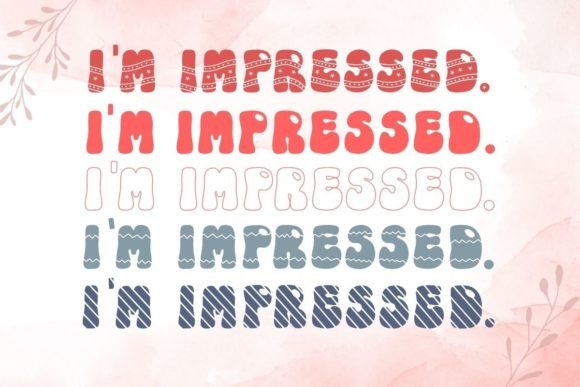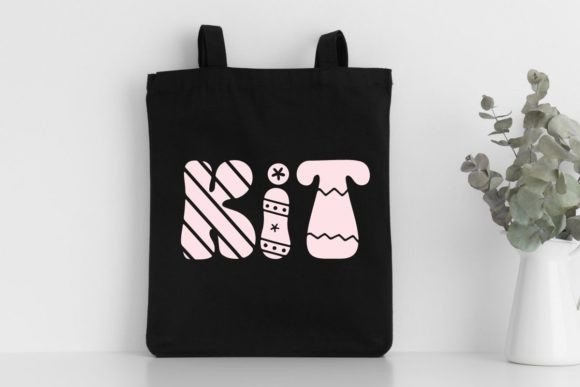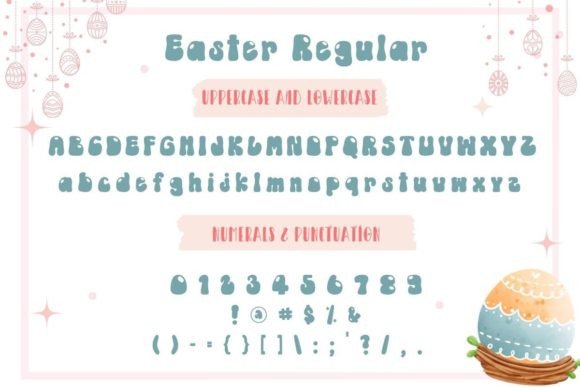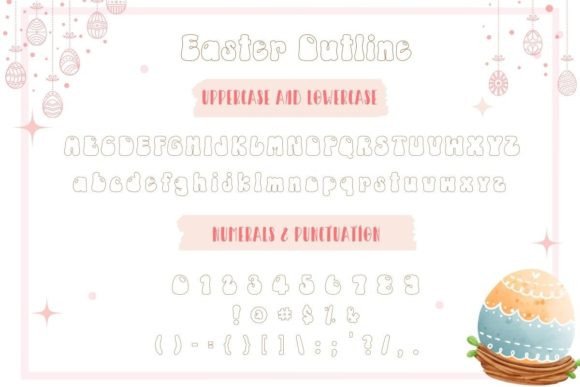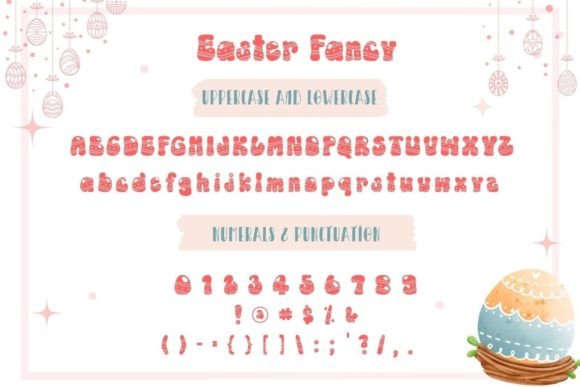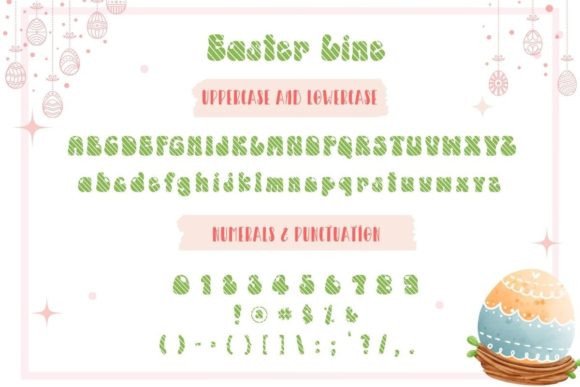
Easter Font: The Ultimate Decorative Font for Bold and Eye-Catching Designs
Easter is a bulky and attractive decorative font that adds a bold and dynamic element to your designs. With its strong, blocky characters and unique styling, this font is perfect for creating eye-catching headlines, posters, logos, and branding materials that demand attention. In this article, we’ll explore the features and benefits of Easter Font, and how it can elevate your design game.
What is Easter Font?
Easter Font is a decorative font designed to make a statement. Its bulky and blocky characters are carefully crafted to provide a bold and dynamic look that’s perfect for designs that need to stand out. The font’s unique styling is both modern and playful, making it an excellent choice for designers and crafters looking to add a touch of personality to their work.
Key Features of Easter Font
- Bold and Dynamic: Easter Font is designed to be bold and attention-grabbing, making it perfect for headlines, titles, and other design elements that need to stand out.
- Unique Styling: The font’s unique styling is both modern and playful, making it an excellent choice for designers and crafters looking to add a touch of personality to their work.
- Blocky Characters: The font’s blocky characters provide a sturdy and robust look that’s perfect for creating eye-catching designs.
- Highly Versatile: Easter Font is highly versatile and can be used for a wide range of design projects, from posters and logos to branding materials and more.
Benefits of Using Easter Font
There are many benefits to using Easter Font in your designs. Here are just a few:
- Adds Visual Interest: Easter Font adds a bold and dynamic element to your designs, making them more visually interesting and engaging.
- Perfect for Headlines: The font’s bold and attention-grabbing style makes it perfect for headlines and titles that need to stand out.
- Easy to Read: Despite its bold style, Easter Font is easy to read, making it perfect for designs that need to communicate a message quickly and effectively.
- Customizable: Easter Font is highly customizable, allowing you to adjust the font size, color, and style to fit your design needs.
How to Use Easter Font in Your Designs
Using Easter Font in your designs is easy. Here are a few tips to get you started:
- Pair with Other Fonts: Easter Font pairs well with other fonts, so don’t be afraid to experiment with different font combinations to create a unique look.
- Use for Headlines: Easter Font is perfect for headlines and titles, so use it to add a bold and attention-grabbing element to your designs.
- Experiment with Colors: Easter Font looks great in a variety of colors, so experiment with different colors to find the one that works best for your design.
- Use for Branding: Easter Font is perfect for branding materials, such as logos and business cards, so use it to create a bold and memorable brand identity.
Easter Font for Designers and Crafters
Easter Font is a versatile font that’s perfect for both designers and crafters. Here are a few ways you can use Easter Font in your projects:
- Designers: Use Easter Font to add a bold and dynamic element to your designs, from posters and logos to branding materials and more.
- Crafters: Use Easter Font to create handmade cards, gift tags, and other paper crafts that need a bold and attention-grabbing element.
- DIY Projects: Easter Font is perfect for DIY projects, such as creating custom signs, banners, and other decorative items.
Easter Font is a bold and dynamic decorative font that’s perfect for designers and crafters looking to add a touch of personality to their work. With its strong, blocky characters and unique styling, this font is perfect for creating eye-catching headlines, posters, logos, and branding materials that demand attention. Whether you’re a designer or crafter, Easter Font is a versatile font that’s sure to elevate your design game.